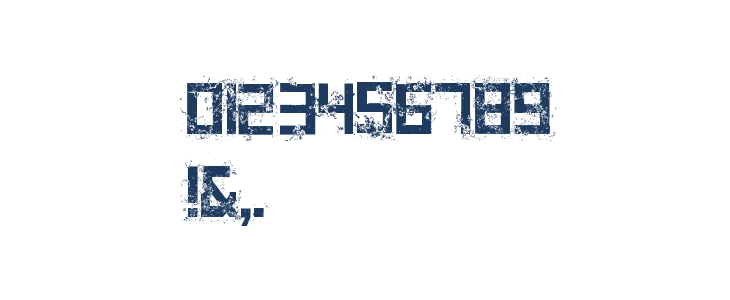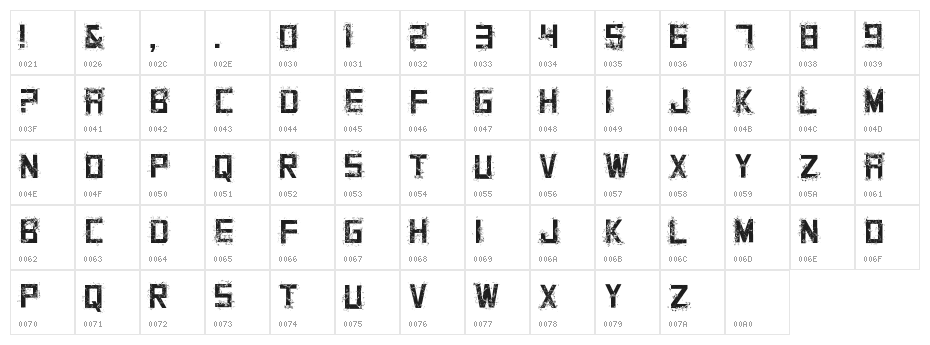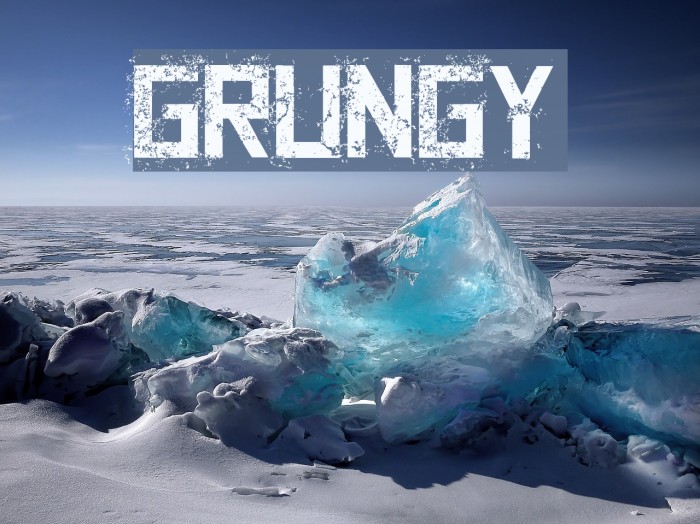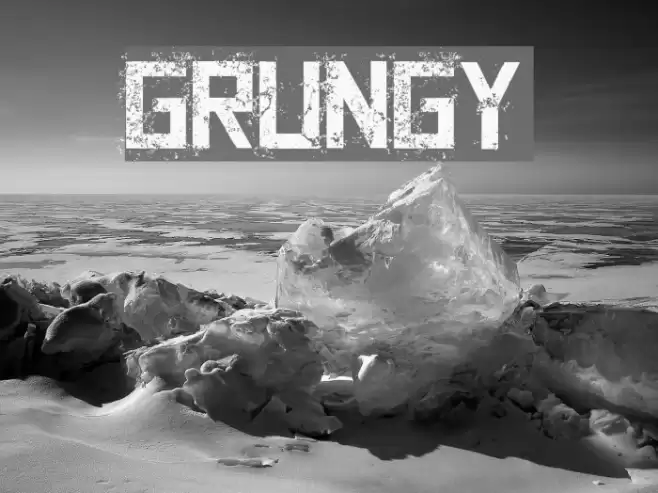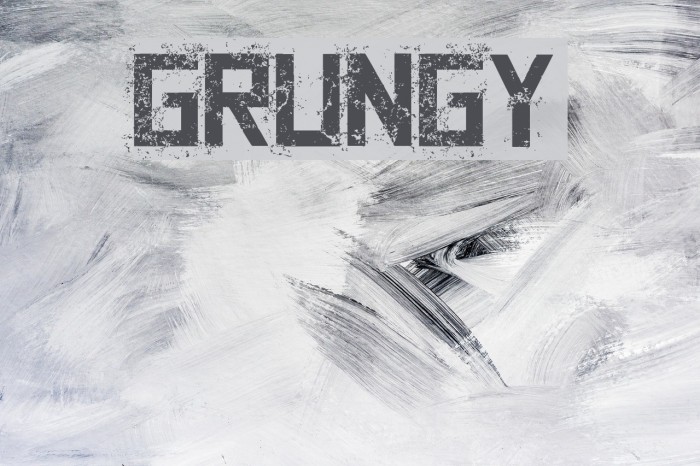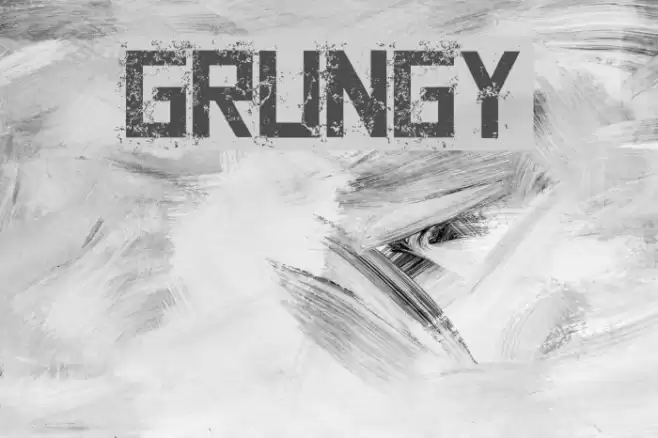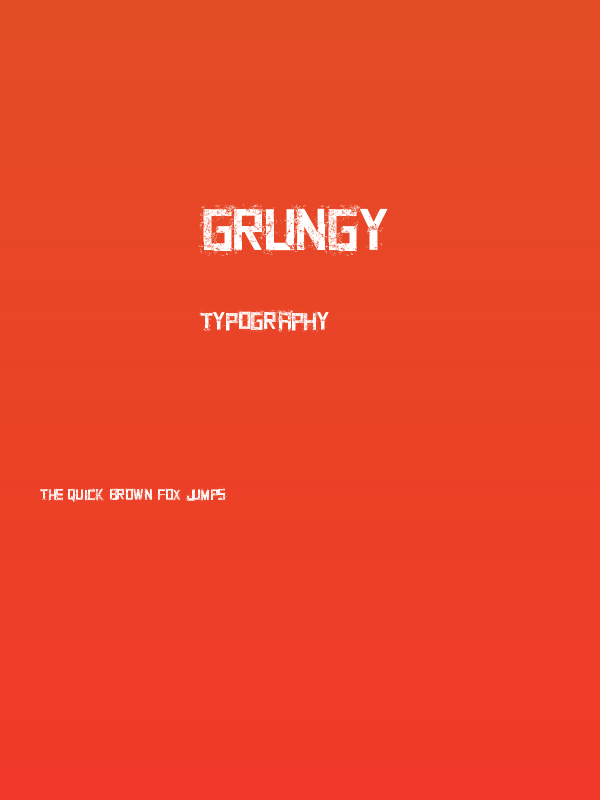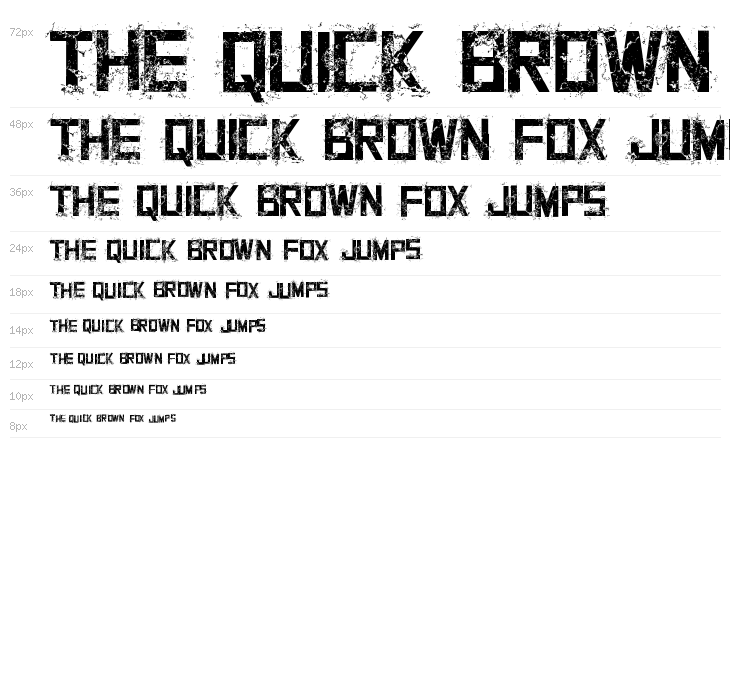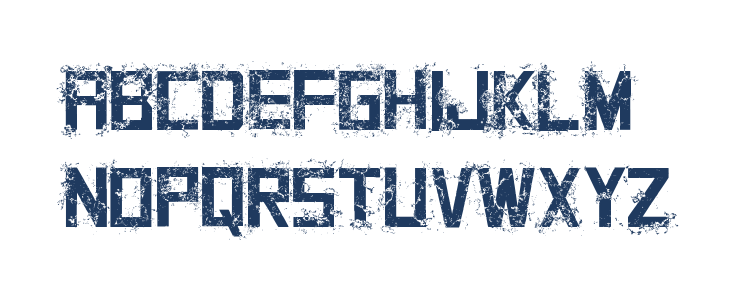
Grungy Font
Grungy Description
This font features a distressed, grungy texture that gives it a rugged and worn appearance. The characters are bold and blocky, with a consistent width that maintains readability despite the heavy texture overlay. The rough edges and irregular patterns within each letter create a sense of chaos and urban decay, making it ideal for designs that require a gritty, industrial feel. The uppercase and lowercase letters, along with numbers and special characters, are all uniformly styled, ensuring a cohesive look across any text. The font's unique style is perfect for projects that aim to convey a sense of rebellion or non-conformity.
| Overall Style | Grunge, Urban, Industrial |
| Proposed Projects | Album covers, streetwear branding, event posters, urban-themed graphics. |